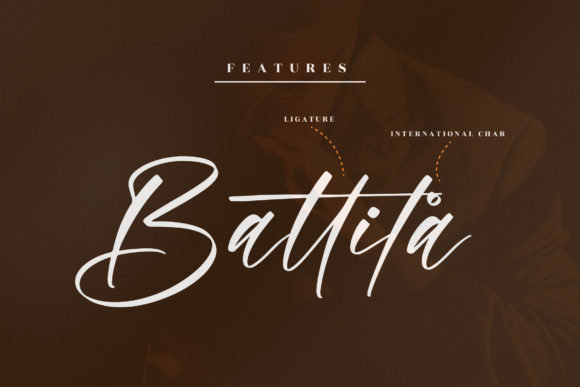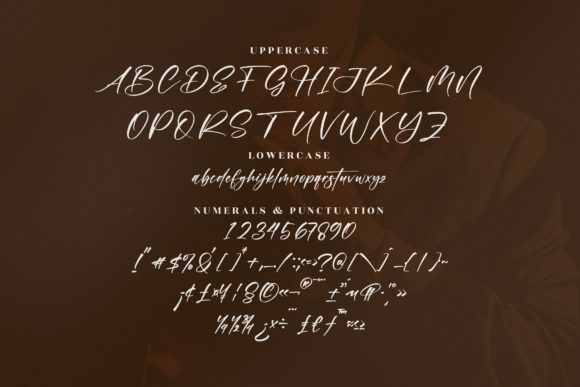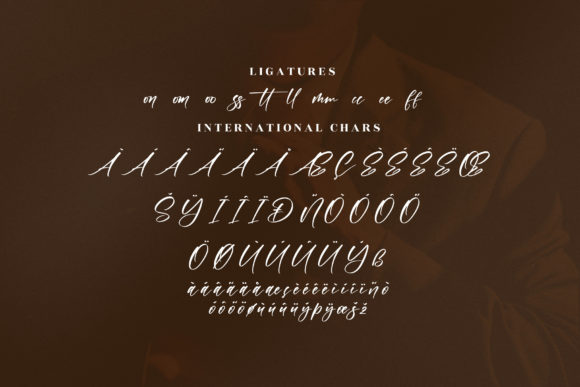
Husttman Font
About Husttman Font
Husttmanis a lovely, elegant and unique script font. Add this romantic looking font to each of your love letters, wedding invitations or favorite design ideas, and you will be astounded by the outcome.